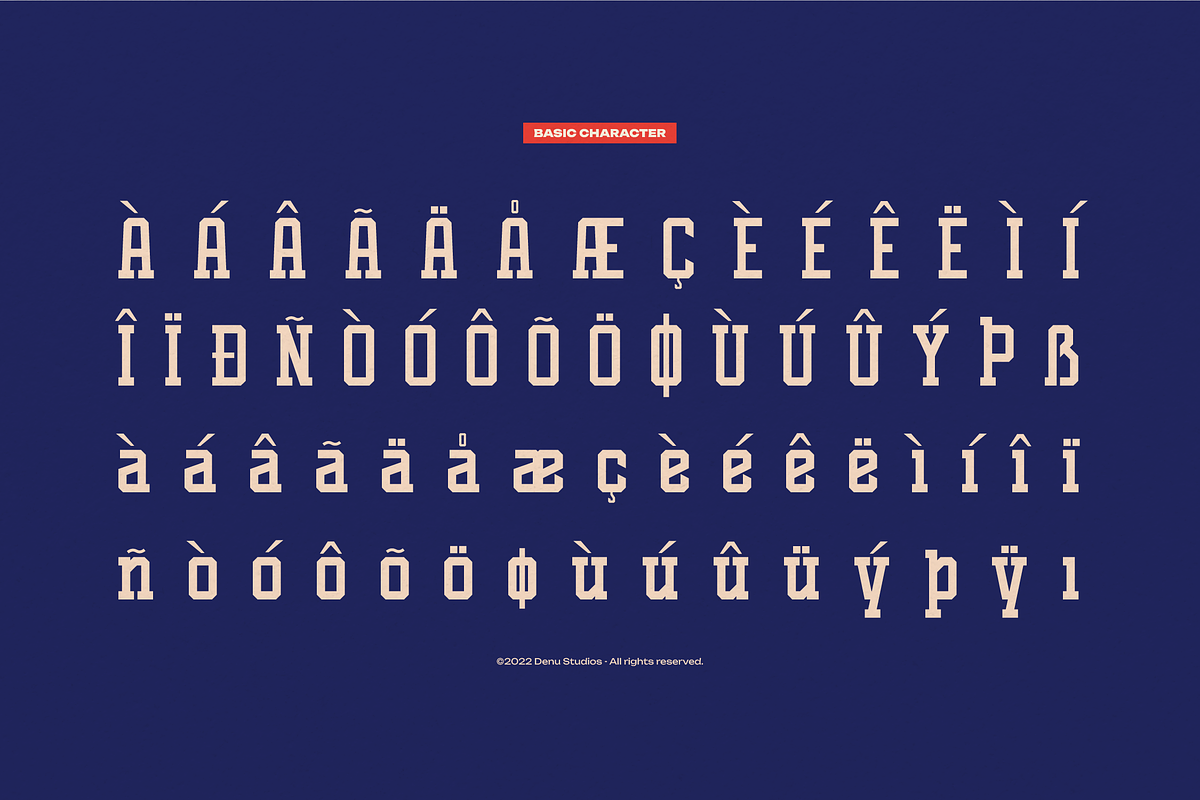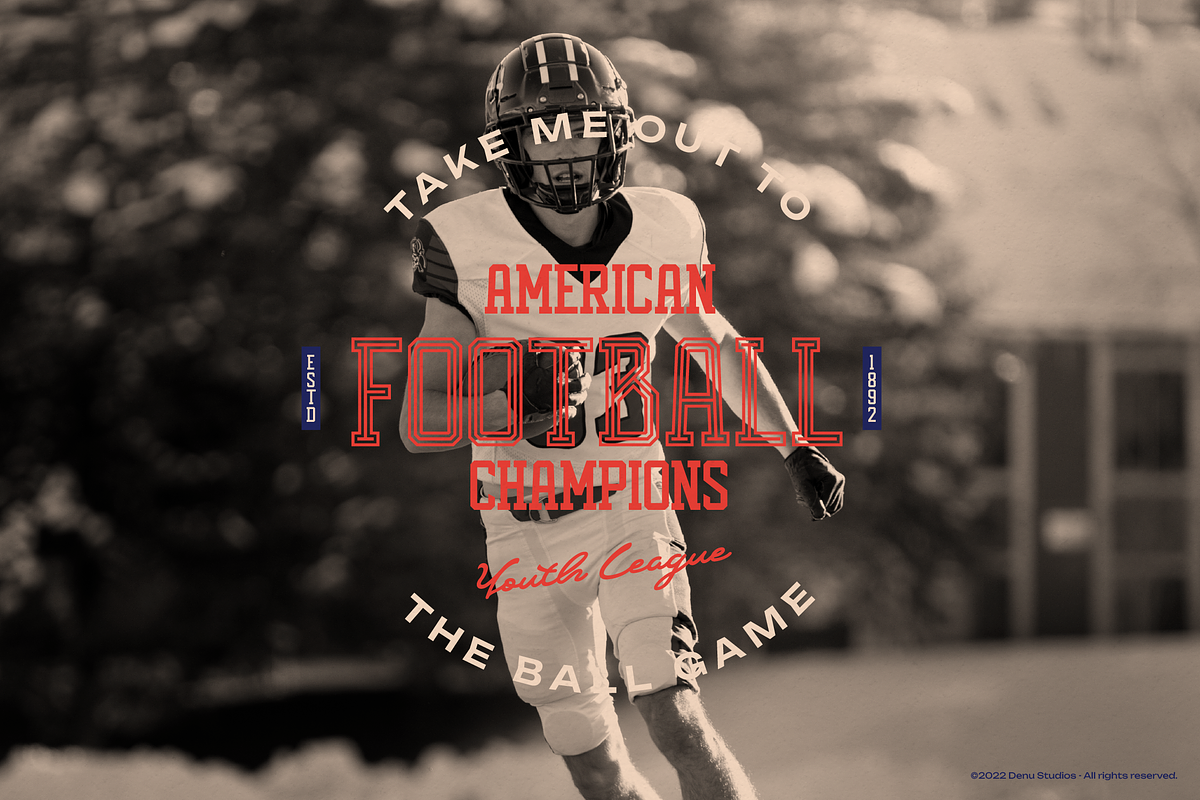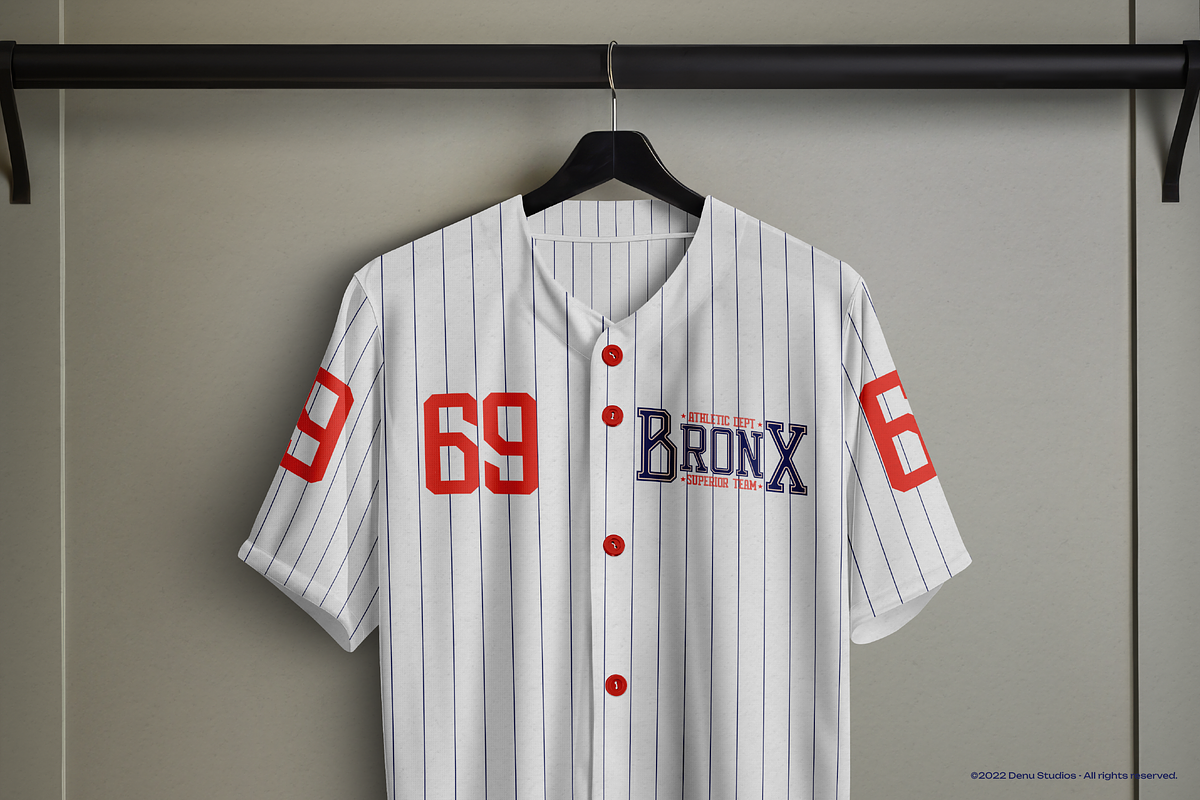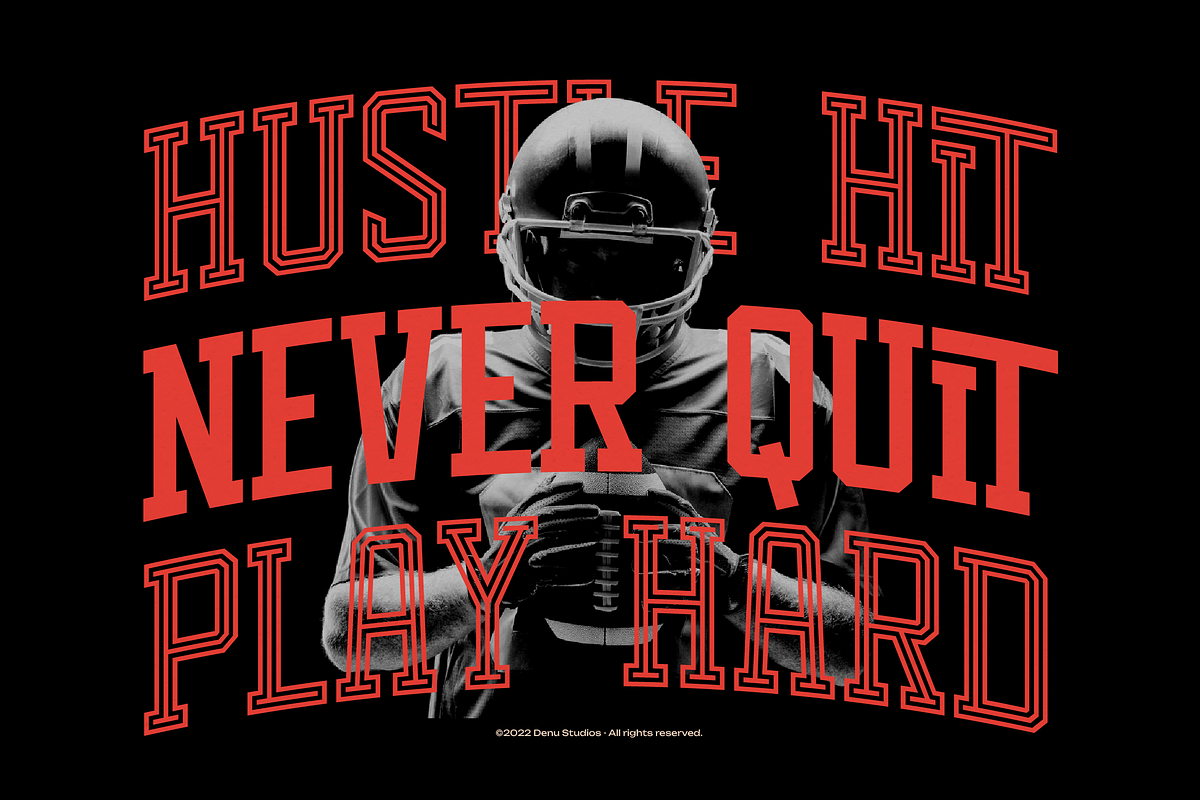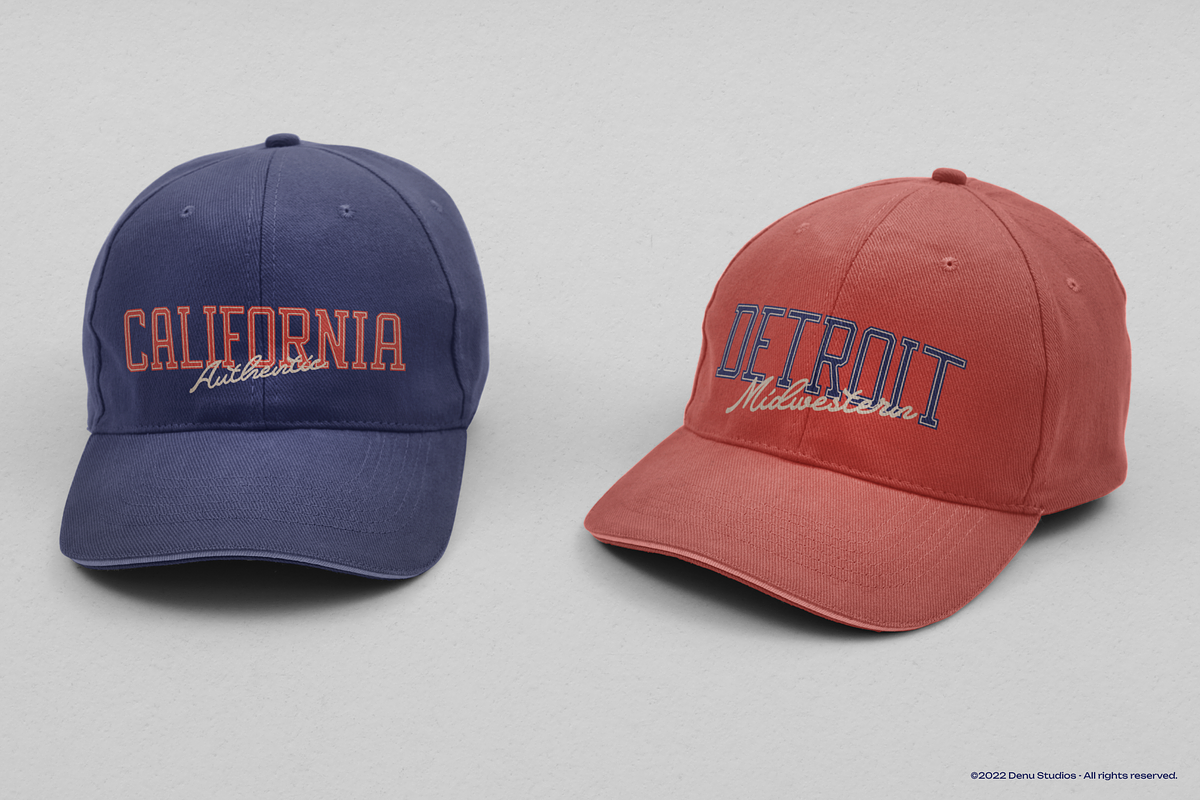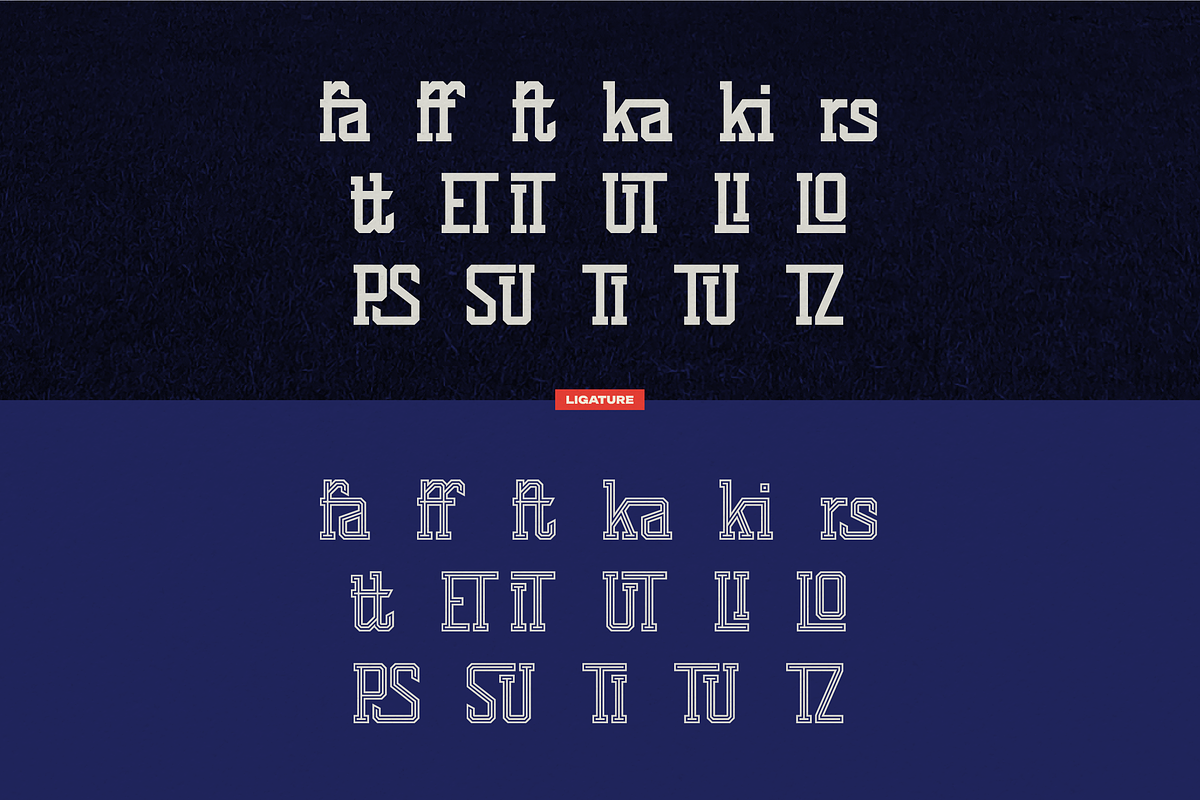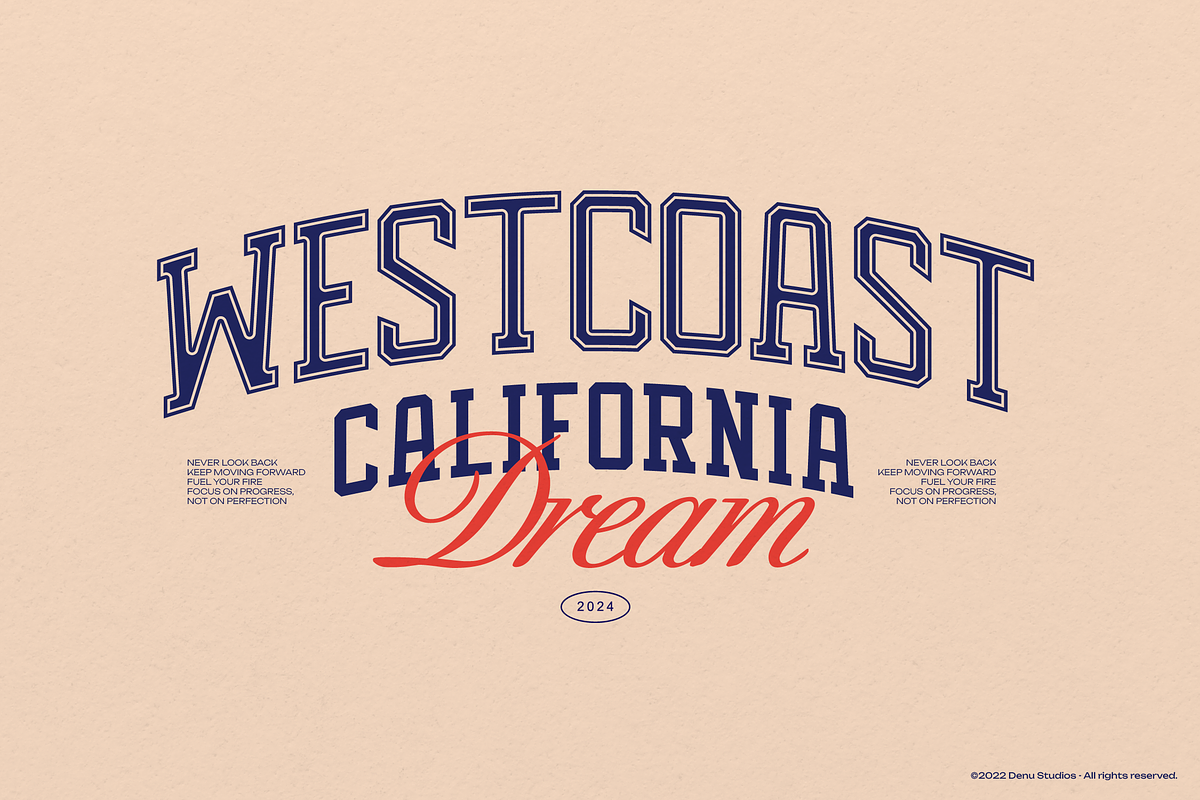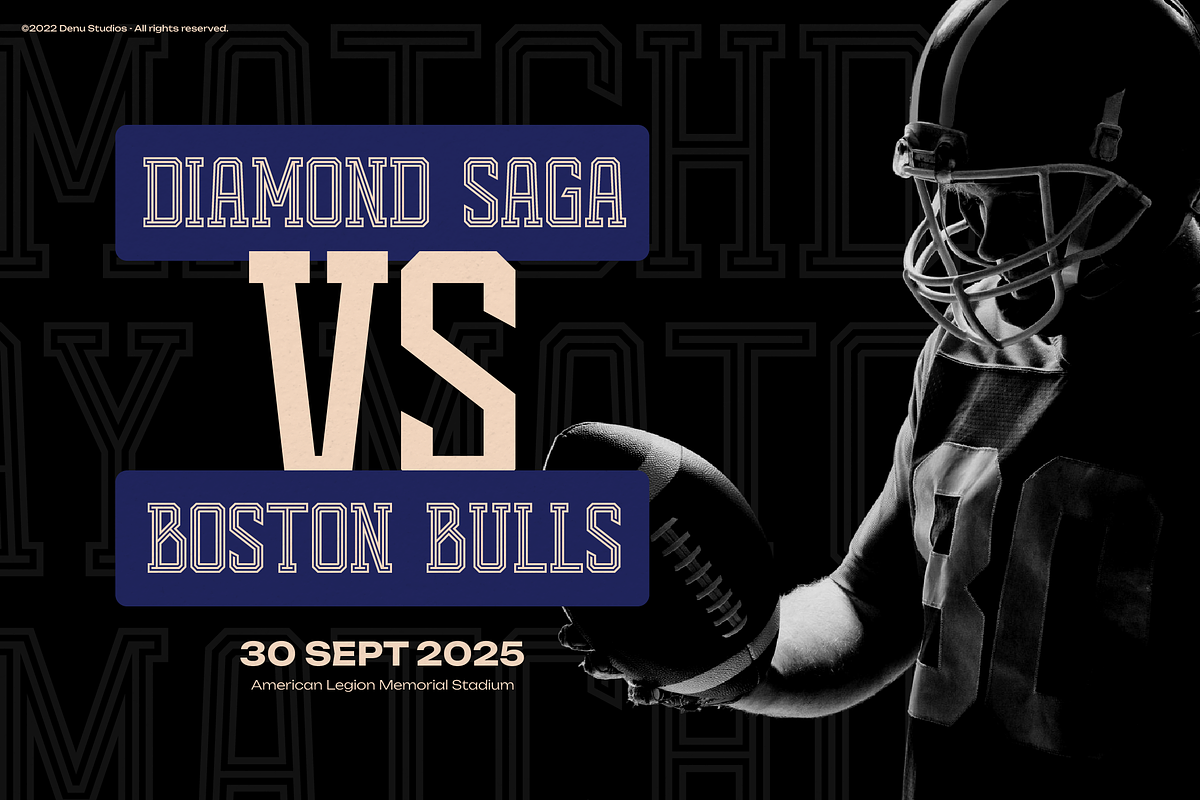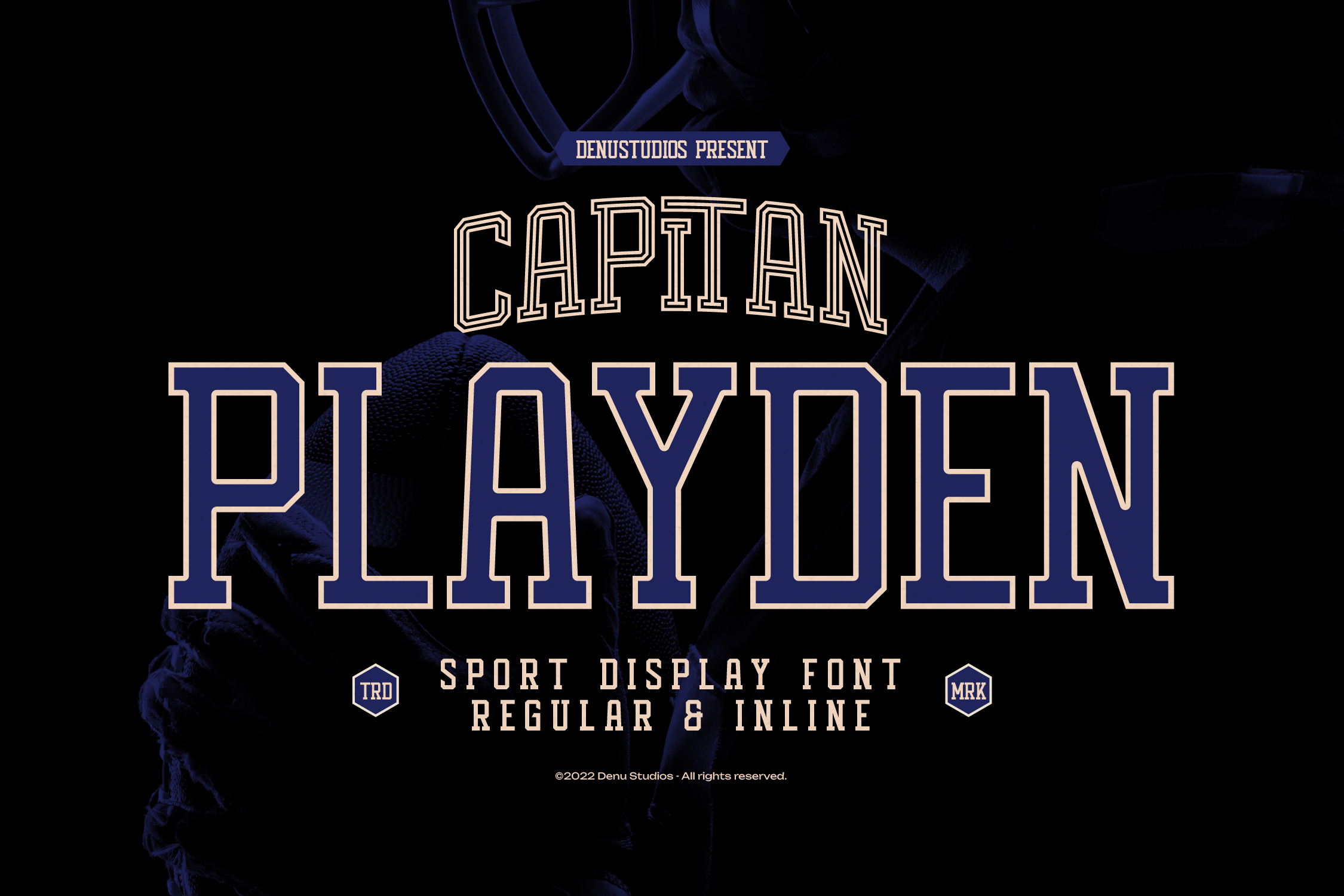
Capitan Playden | Sport Display Font
Capitan Playden | Sport Display Font, from Denustudios, suitable for any projects such as: logos, branding projects, homeware designs, product packaging, mugs, quotes, posters, shopping bags, t-shirts, book covers, name card, invitation cards, greeting cards, label, photography, watermark, special events, and all your other lovely projects that need a Sport Display Font taste.